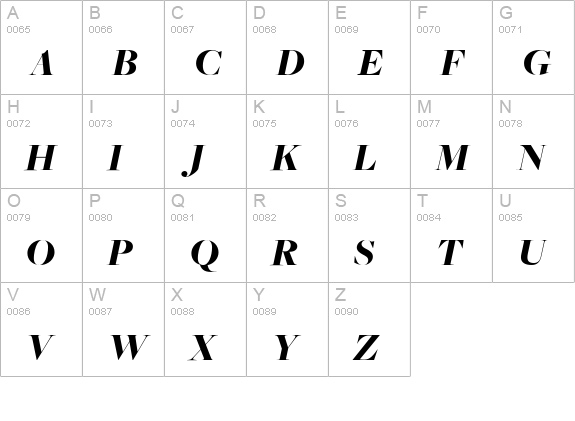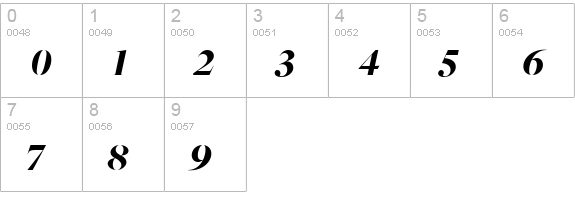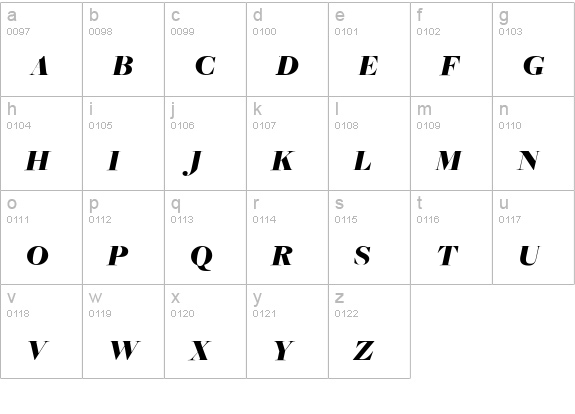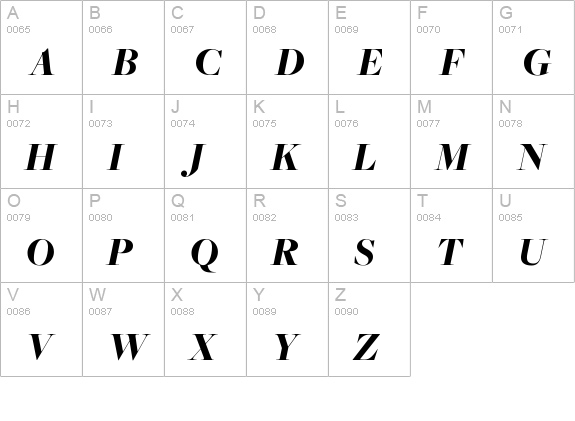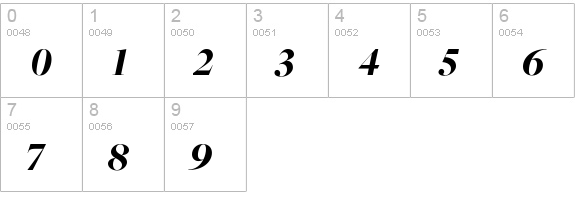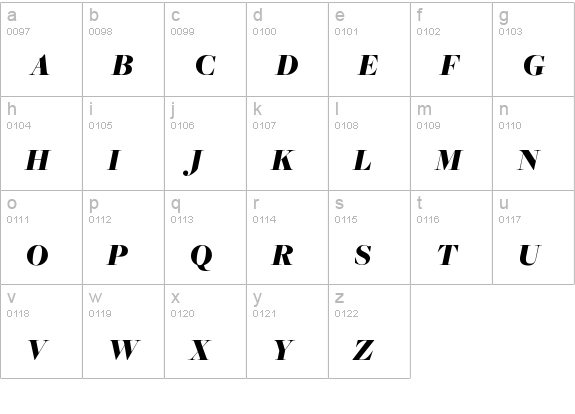
FreightBigBlackItalicSC Font Details
FreightBigBlackItalicSC is a bold and striking font that commands attention with its strong and sleek design. The italic style adds a touch of elegance and sophistication to any text or design project. This font is perfect for headlines, titles, and other prominent text elements that need to make a statement. What makes FreightBigBlackItalicSC even more appealing is that it is available for free download at FontsMarket.com. This means that you can easily access and use this eye-catching font in your projects without any cost. Whether you're working on a print design, website, or any other creative endeavor, FreightBigBlackItalicSC is sure to elevate your work with its modern and impactful look. Don't miss out on the opportunity to enhance your designs with FreightBigBlackItalicSC. Download this font for free today and take your projects to the next level.